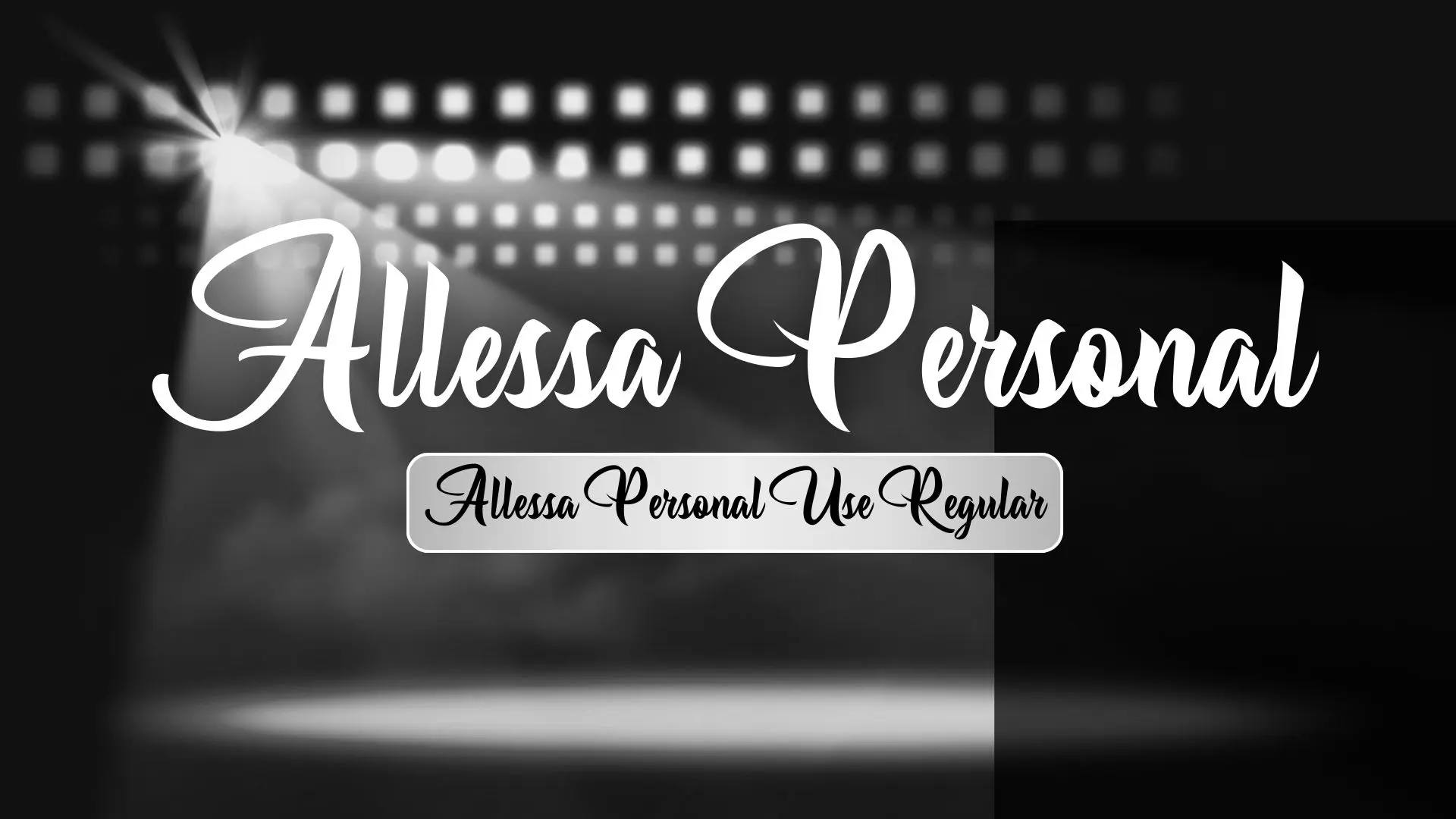
Allessa Personal Use Regular
The font Allessa Personal Use Regular, designed by Letterhend Studio, falls under the Handwritten, Script category & Allessa Personal Use font family. Its smooth, flowing letterforms make it a versatile choice for projects that require both elegance and readability. Allessa Personal Use is particularly well-suited for Branding, Poster, Headlines, Titles, Logos, Invitations, Stationery, Greeting Cards and Packaging Design. With its balance of simplicity and decorative appeal, this font brings a polished touch to both personal and professional designs.